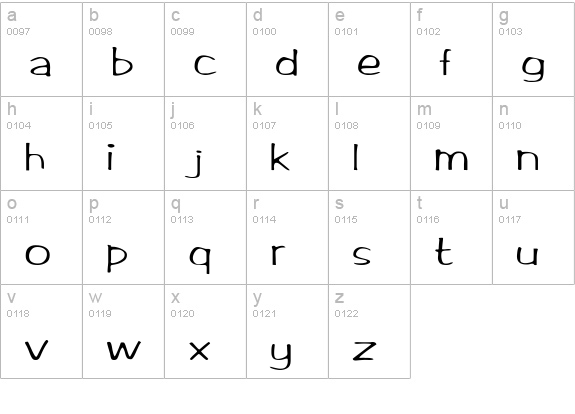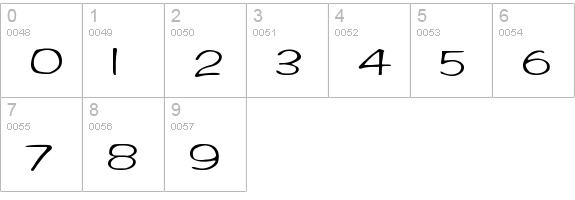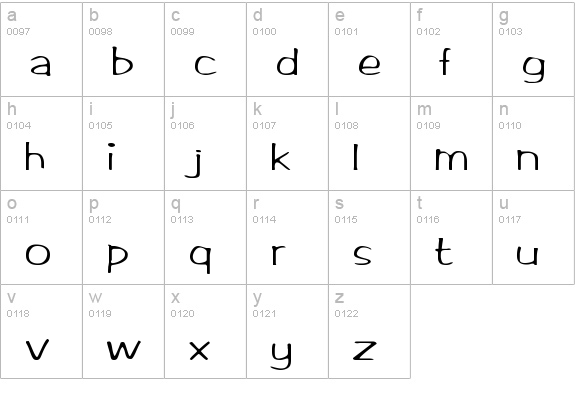
Ticard Font Details
Introducing Ticard, a stunningly elegant font that combines classic charm with a modern twist. With its timeless appeal and versatile nature, Ticard is the perfect choice for any design project that calls for sophistication and style. Featuring sleek, clean lines and exquisite letterforms, Ticard effortlessly captures attention and leaves a lasting impression. Its meticulously crafted curves create a harmonious flow, while its balanced proportions ensure legibility and readability in any size or context. But what truly sets Ticard apart is its incredible versatility. Whether you're designing a wedding invitation, a logo for a high-end brand, or a sophisticated magazine layout, Ticard adapts flawlessly to any aesthetic, effortlessly elevating your design to new heights. And the best part? Ticard is completely free to download at FontsMarket.com. That's right, this exceptional font can be yours without any cost, allowing you to enhance your projects with professional-grade typography without breaking the bank. So why wait? Experience the timeless elegance of Ticard for yourself and elevate your designs to new levels of sophistication. Discover the perfect balance of classic charm and modern versatility, all with the convenience of a free download at FontsMarket.com.